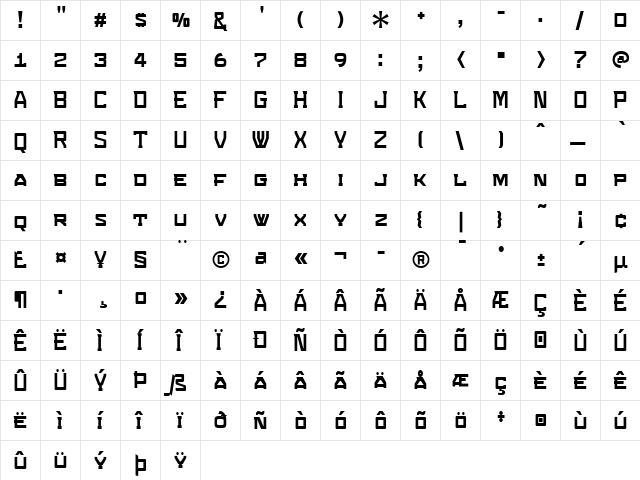
Konvexist Regular
Design Context for Konvexist Typeface
Konvexist takes a measured approach to typography — its balanced proportions and neutral character make it a reliable workhorse for both digital and print work.